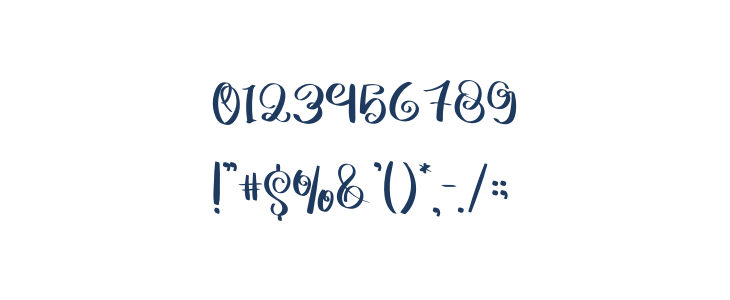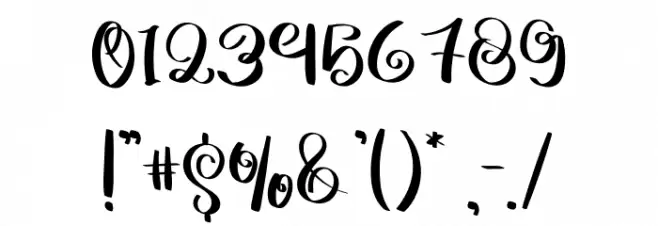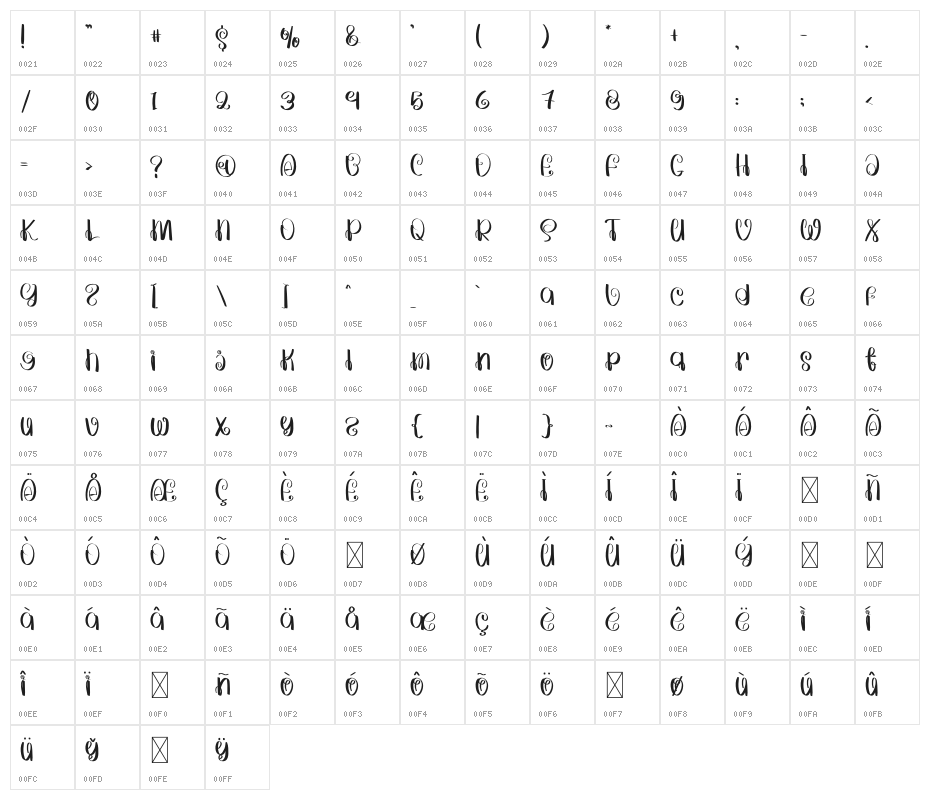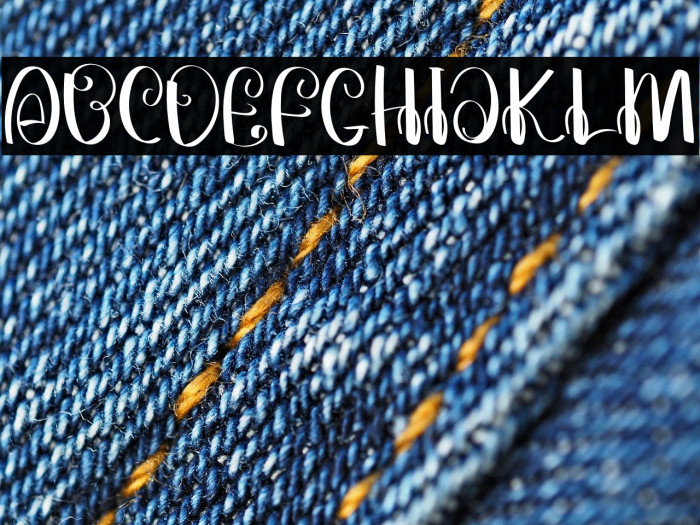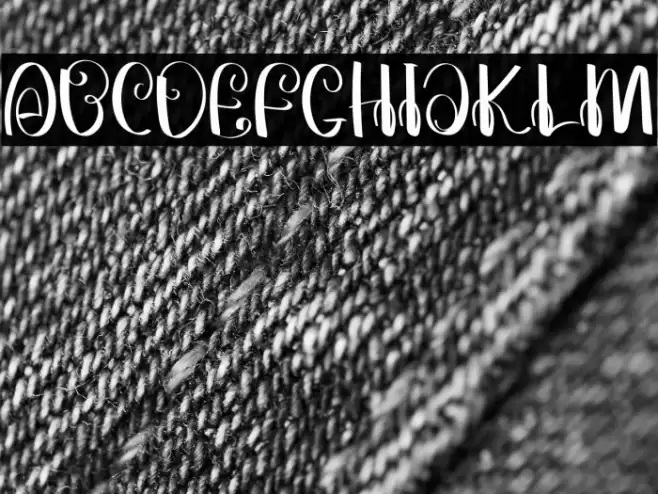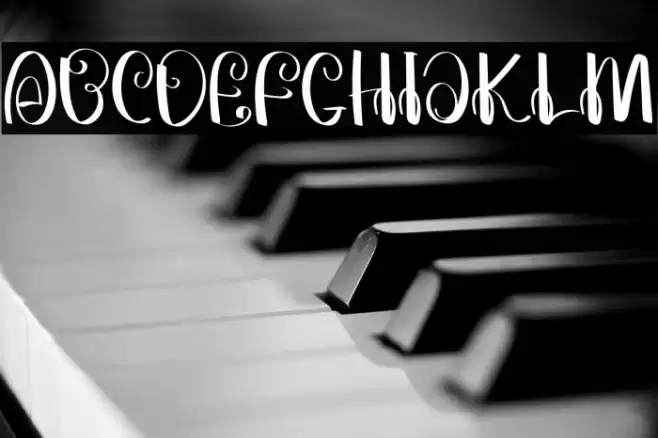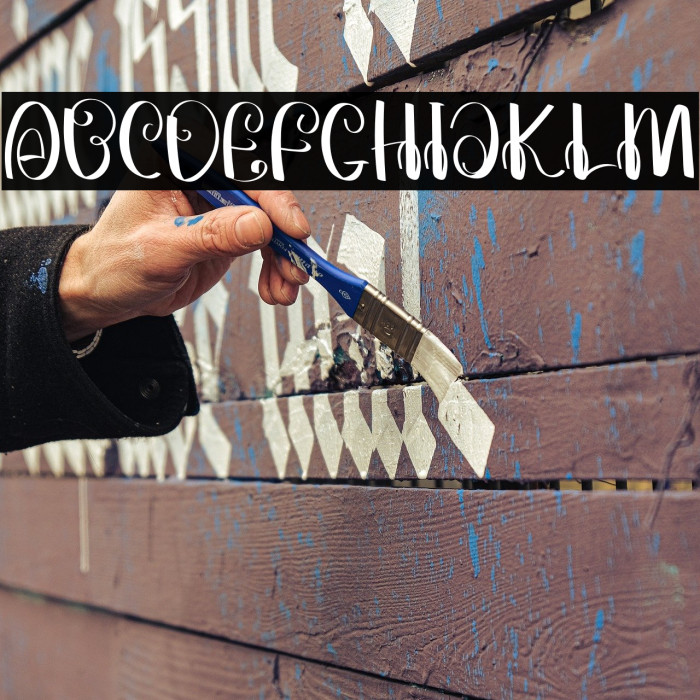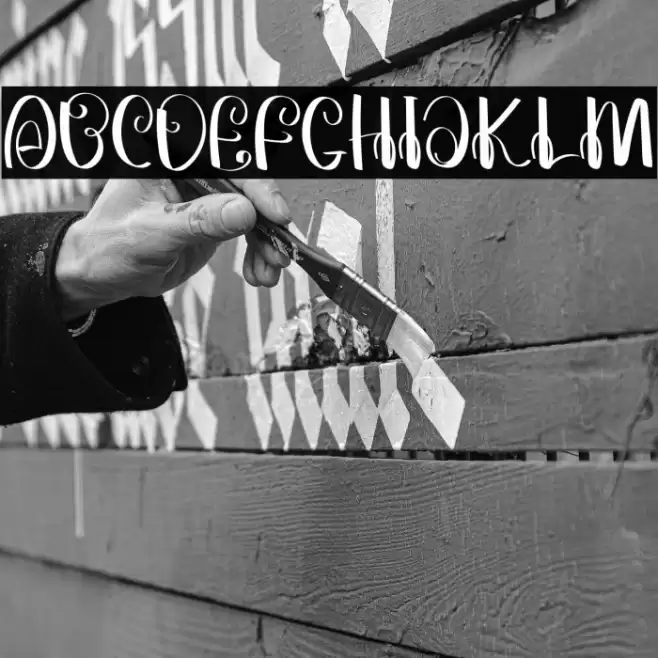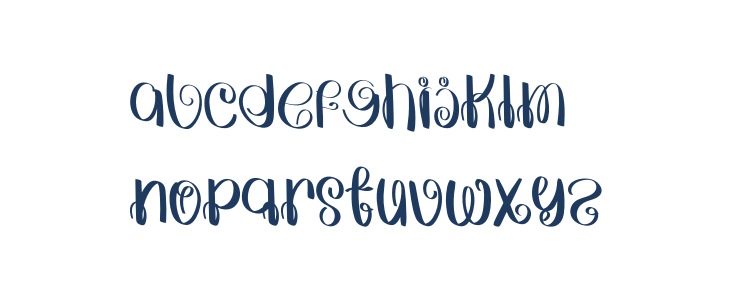
SMART FRIENDS Font
SMART FRIENDS Description
This font features a whimsical and decorative style, characterized by its playful curls and loops integrated into each letter. The uppercase and lowercase letters maintain a consistent design theme, with exaggerated curves and a sense of movement that adds a lively touch. The numerals and special characters follow the same decorative approach, ensuring a cohesive look across all characters. The font's unique style makes it stand out, offering a creative flair that is both eye-catching and memorable.
| Proposed Projects | Ideal for creative projects such as invitations, greeting cards, children's books, and playful branding. |